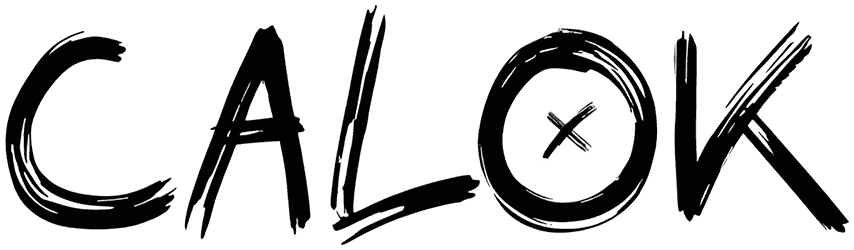
Calok Font
Acquiring an astonishingly natural urban look in your designs will come from a simple copy and paste with this high-quality script font that features an inky style. Calok font is excellent and gives your content and headings more depth; plus, you can turn them to your heart’s content.